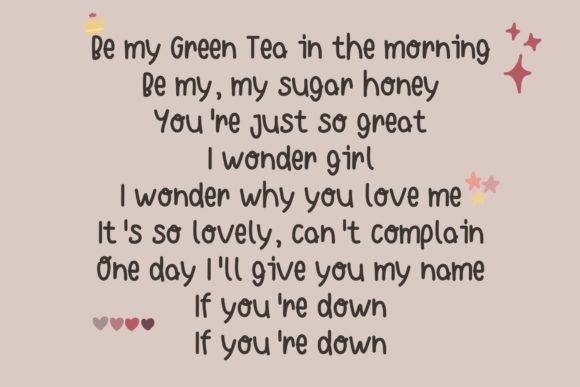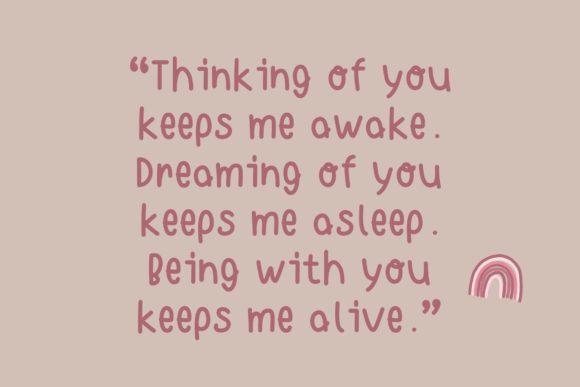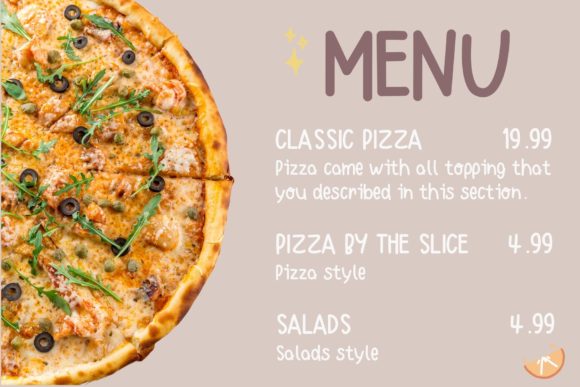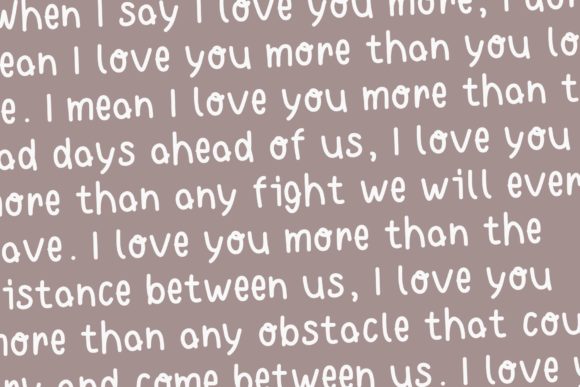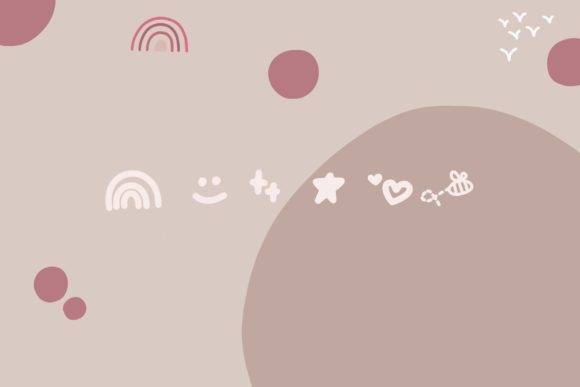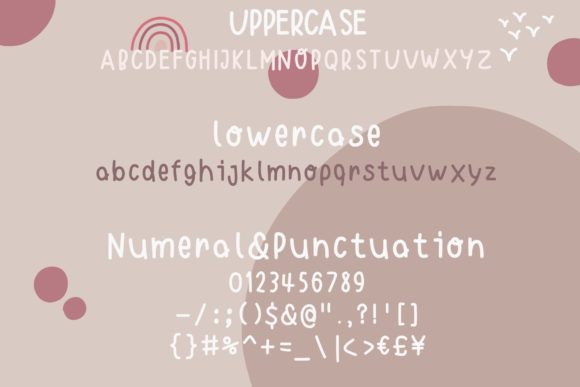
Honey Toast Font
About Honey Toast Font
Honey Toast is a handwritten font that can be used for all chalkboard quotes or teaching material! Its authentic look and feel will add a personal and realistic feel to your designs.